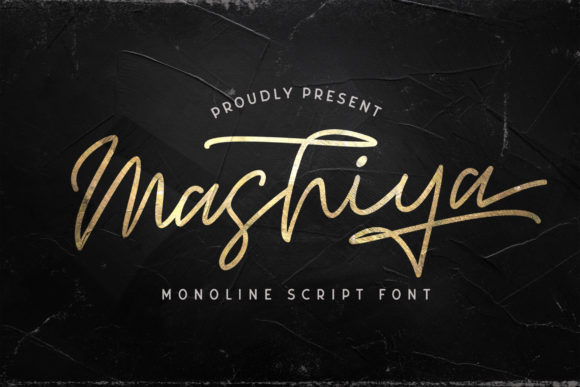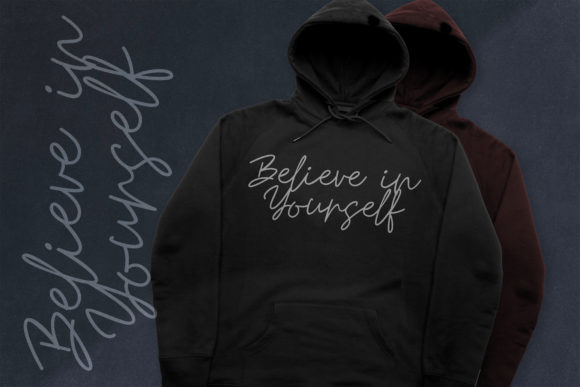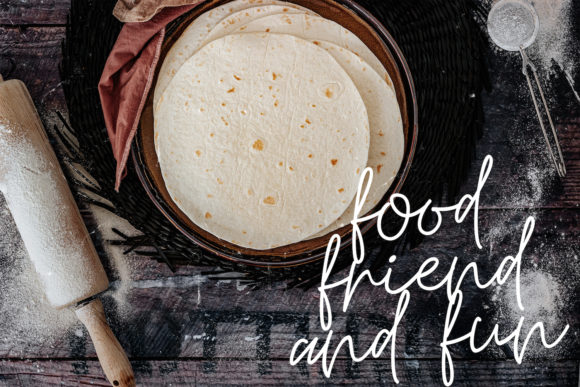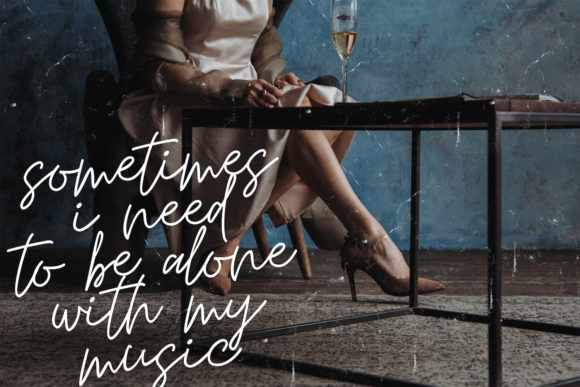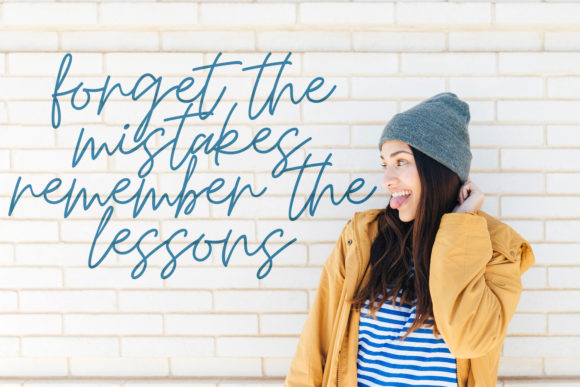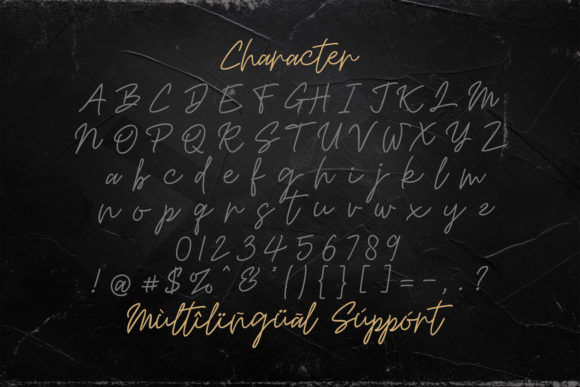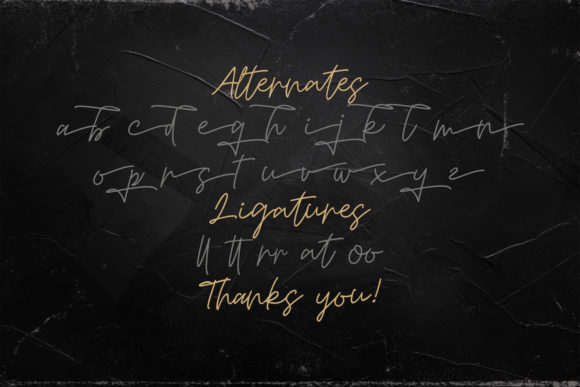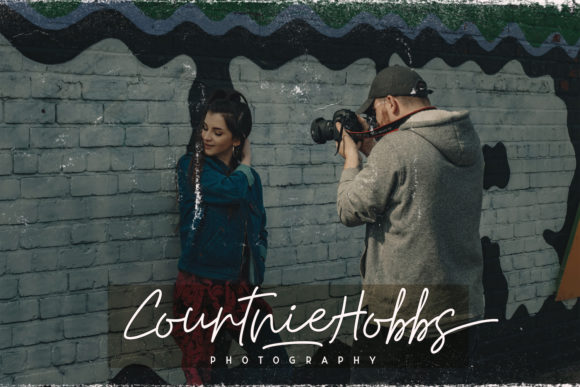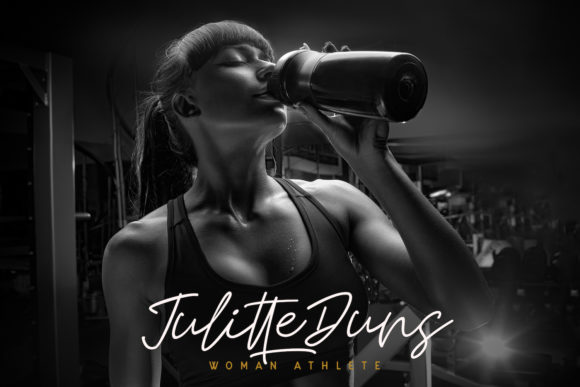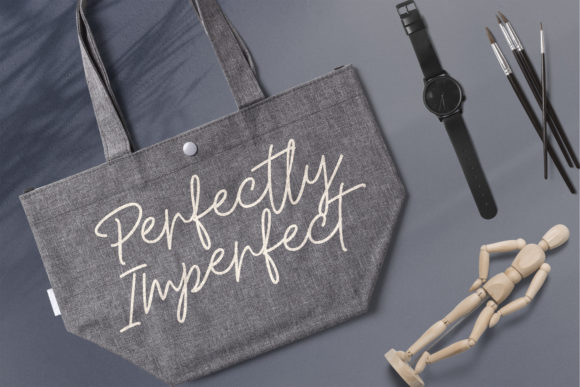
Mashiya Font
About Mashiya Font
Mashiya is an exquisite handwritten font. It is PUA encoded which means you can access all of the glyphs and swashes with ease! It features a varying baseline, smooth lines, gorgeous glyphs and stunning alternates.